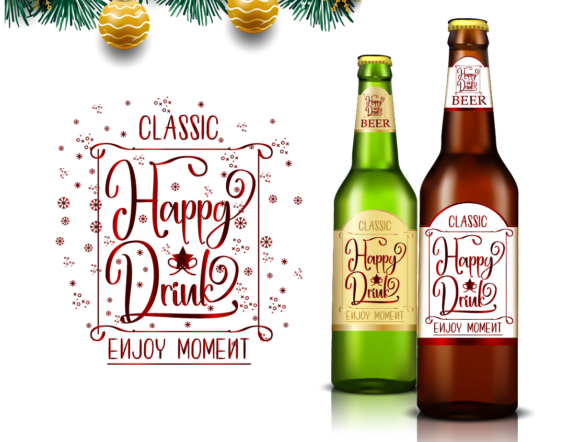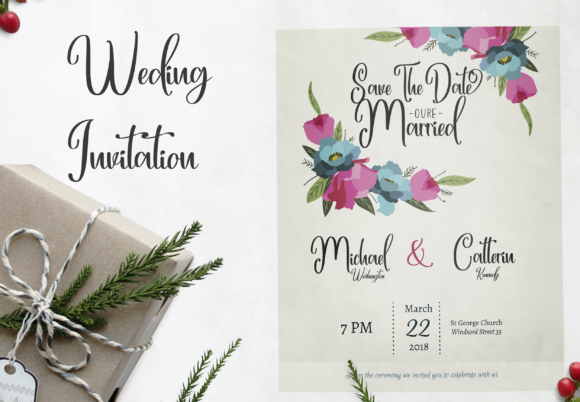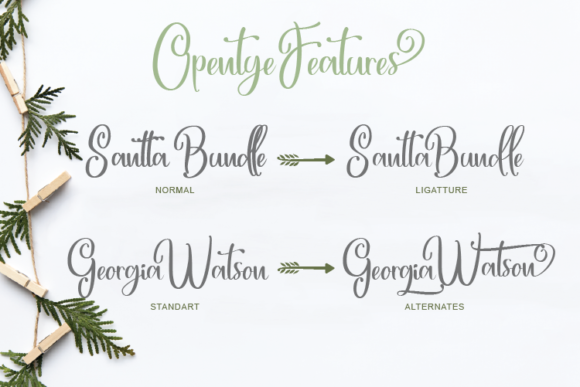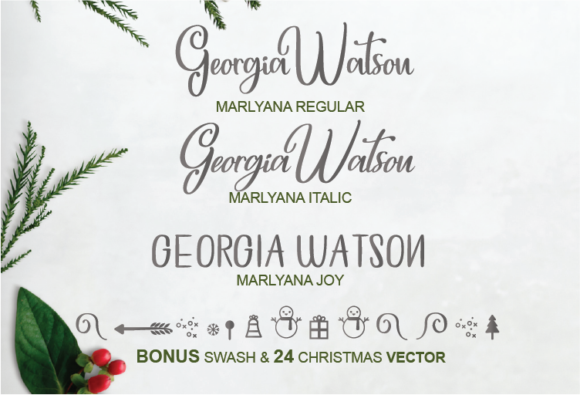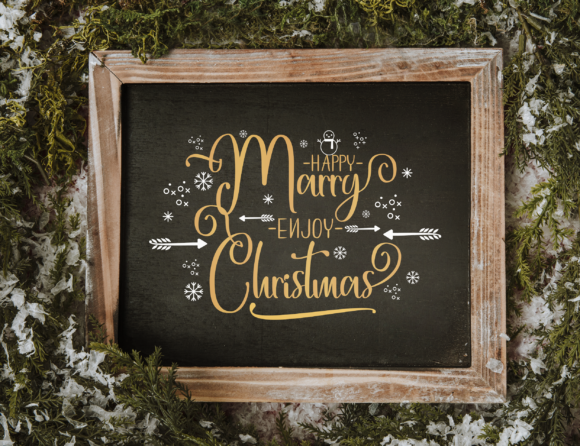
Happy Marlyana TrioFamily Font – Free Download
Introduction to Happy Marlyana TrioFamily Font
The Happy Marlyana is a fresh handmade calligraphy font which comes in 5 variations that match perfectly together.
It’s suitable for greeting cards, branding materials, business cards, quotes, posters, and more .
Key Features of Happy Marlyana TrioFamily Font
Why Choose Happy Marlyana TrioFamily Font?
Happy Marlyana TrioFamily Font offers exceptional quality and versatility, making it a valuable addition to your design toolkit. Whether you’re creating for personal projects or commercial use, Happy Marlyana TrioFamily Font delivers professional results.